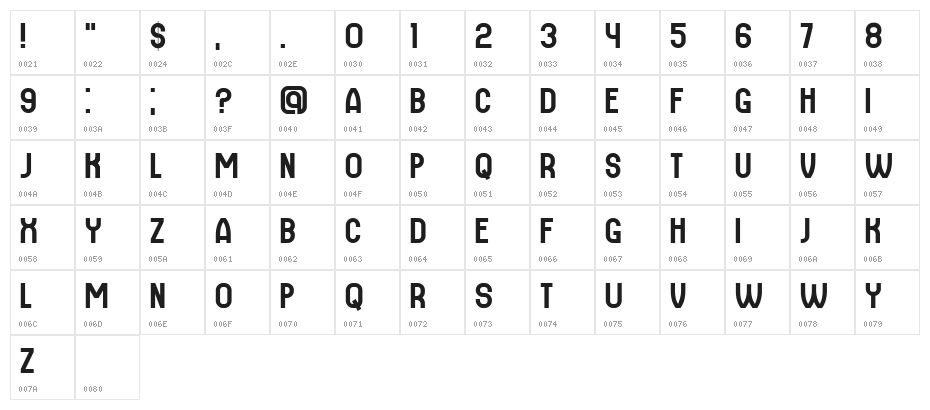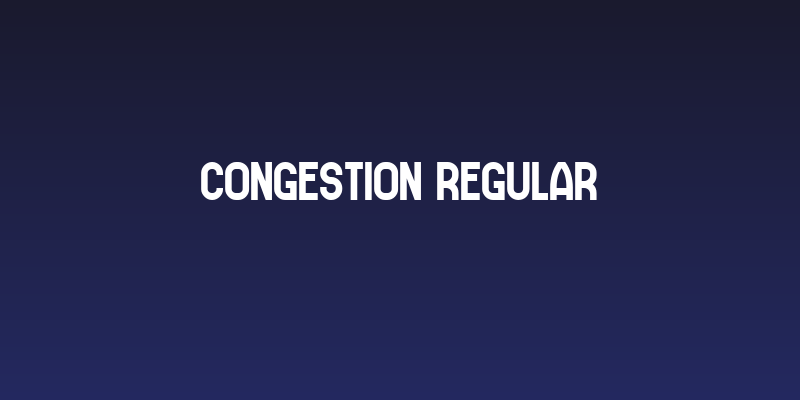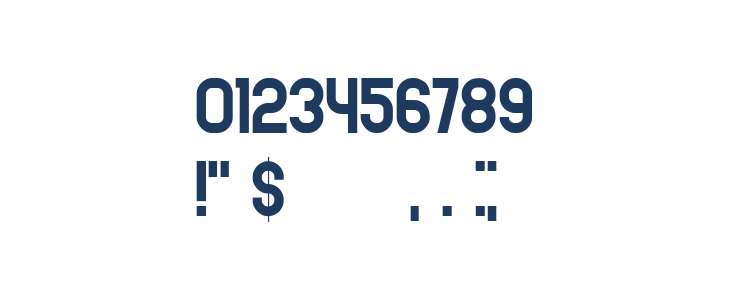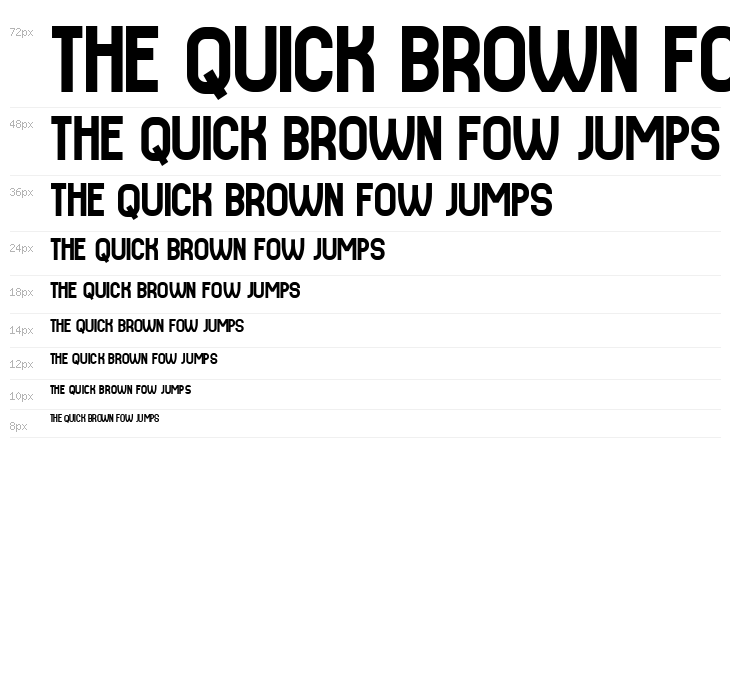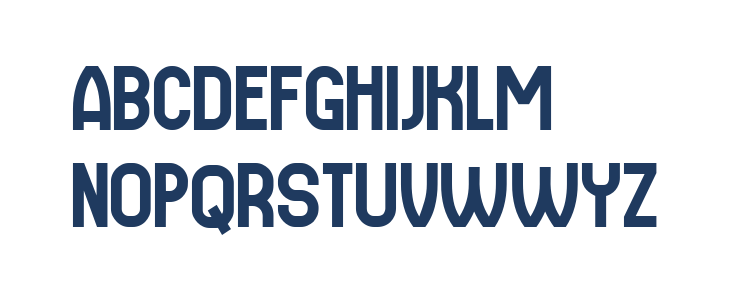
Congestion Regular Font
Congestion Regular Description
This font features a bold and modern design with a strong geometric structure. The characters are uniformly thick, providing a consistent and impactful appearance. The uppercase letters are particularly striking, with sharp angles and a clean finish. The lowercase letters maintain the same boldness, ensuring readability and a cohesive look. The numerals are clear and straightforward, matching the overall style of the font. Special characters are designed with the same attention to detail, making them stand out while remaining harmonious with the rest of the typeface.
| Proposed Projects | Ideal for branding, headlines, posters, and any project requiring a strong visual impact. |